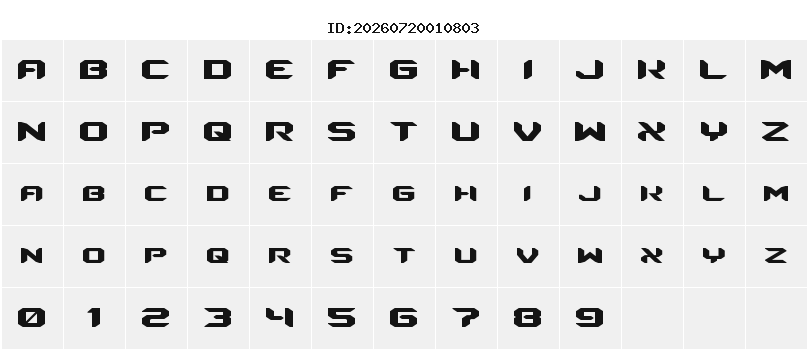
• Font Name: Energon
• Full Font Name: Energon
• Version: Version 2.10, July 13, 2011
• Designer: Neale Davidson
About Energon.ttf
Energon.ttf is a modern, elegant sans-serif font designed for ultimate readability and visual harmony. Perfect for branding, headlines, web design, and print materials.